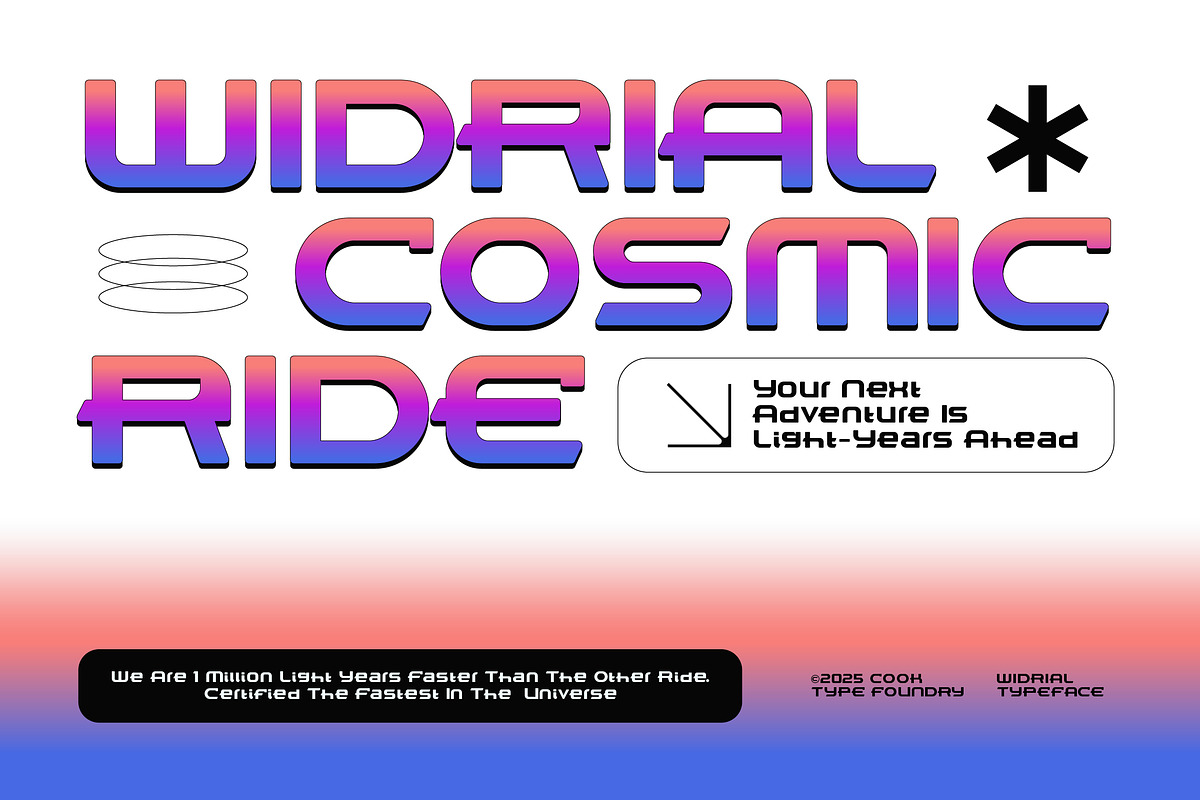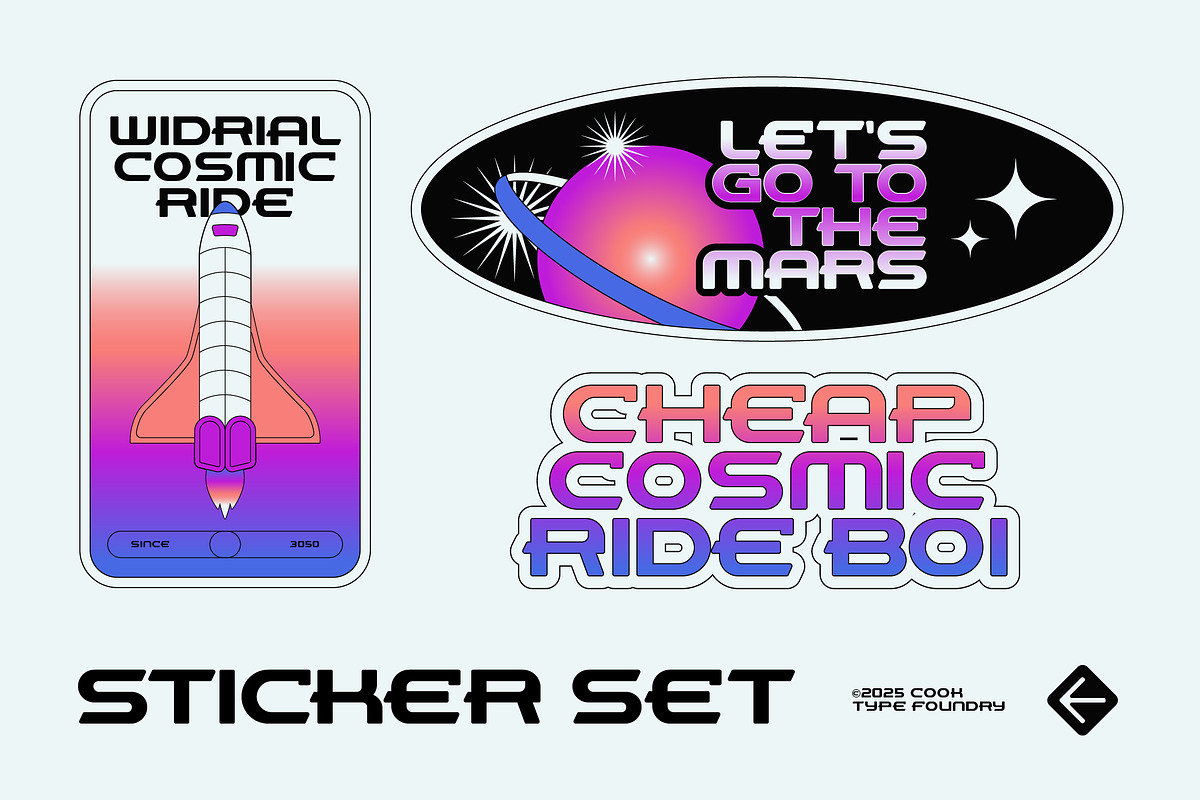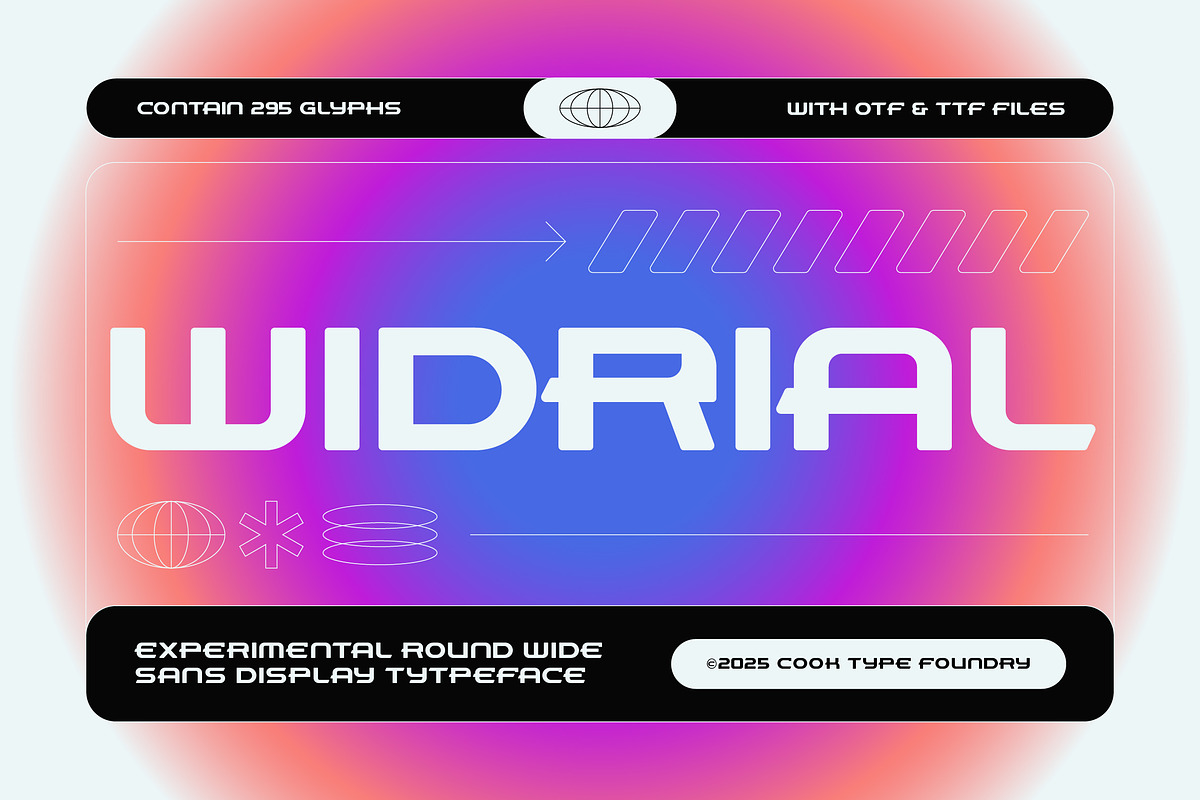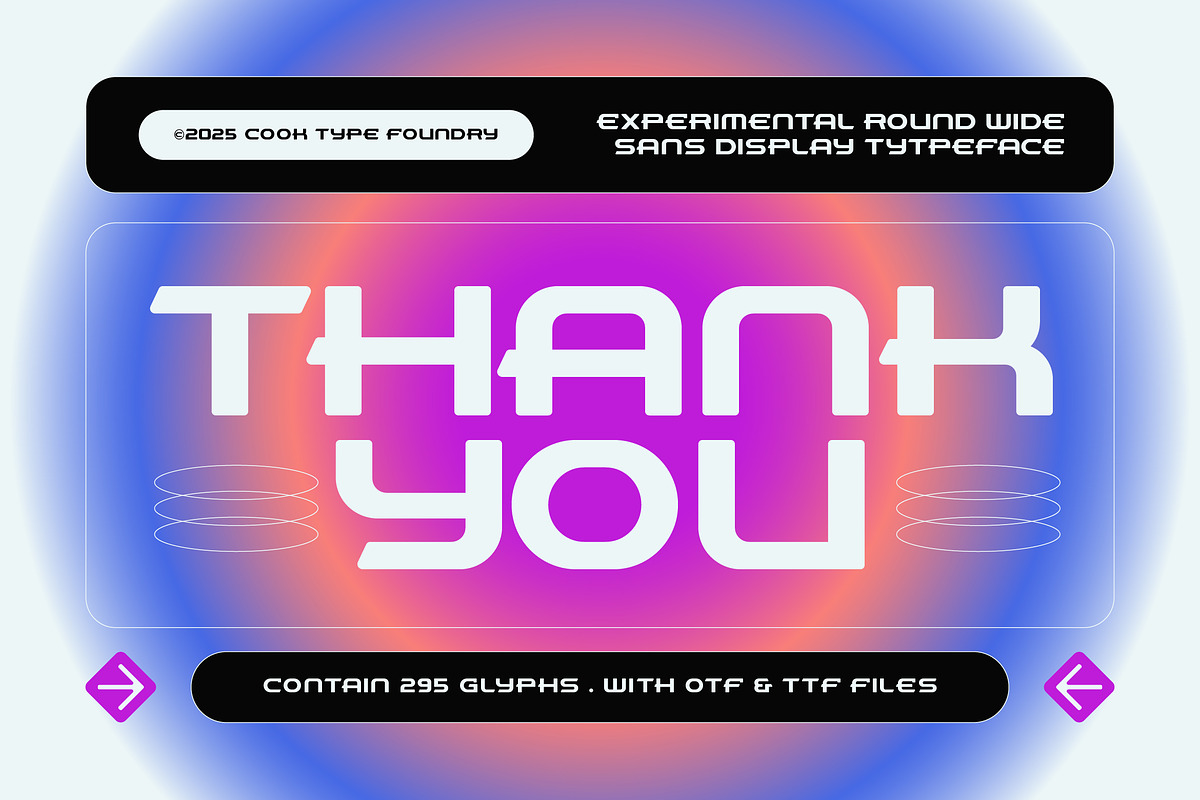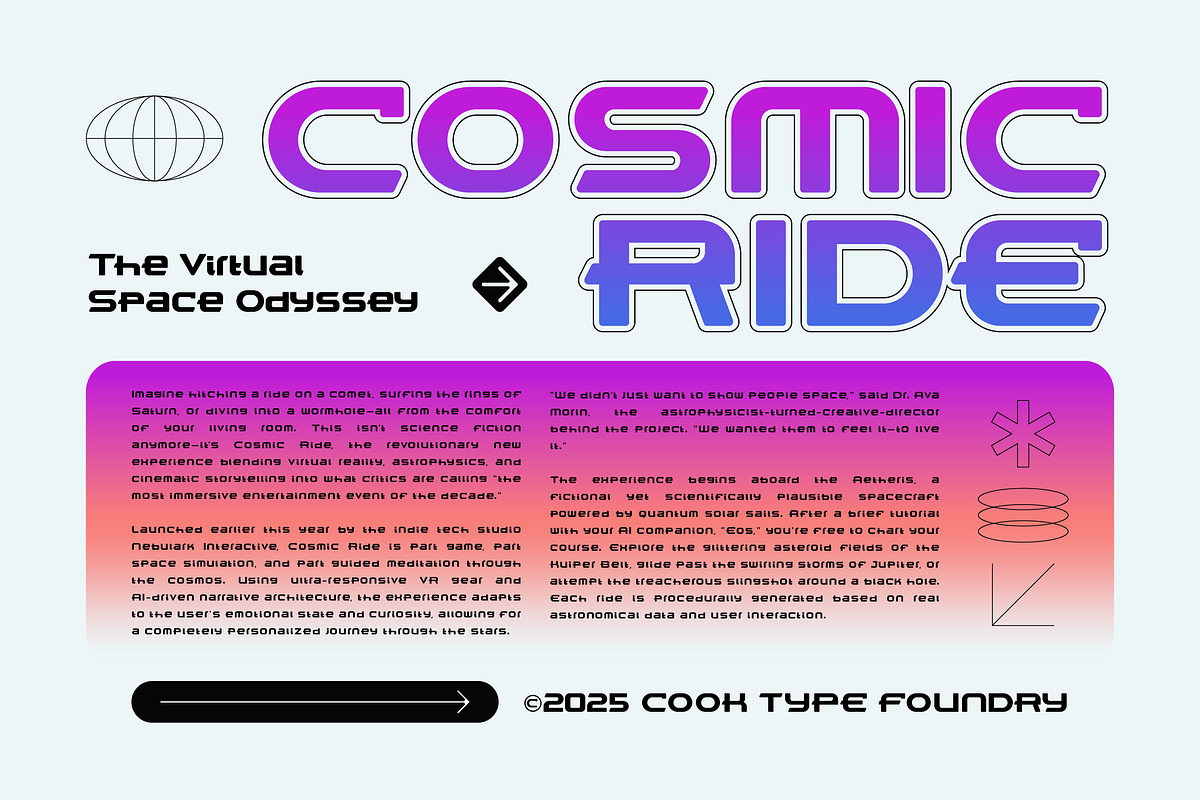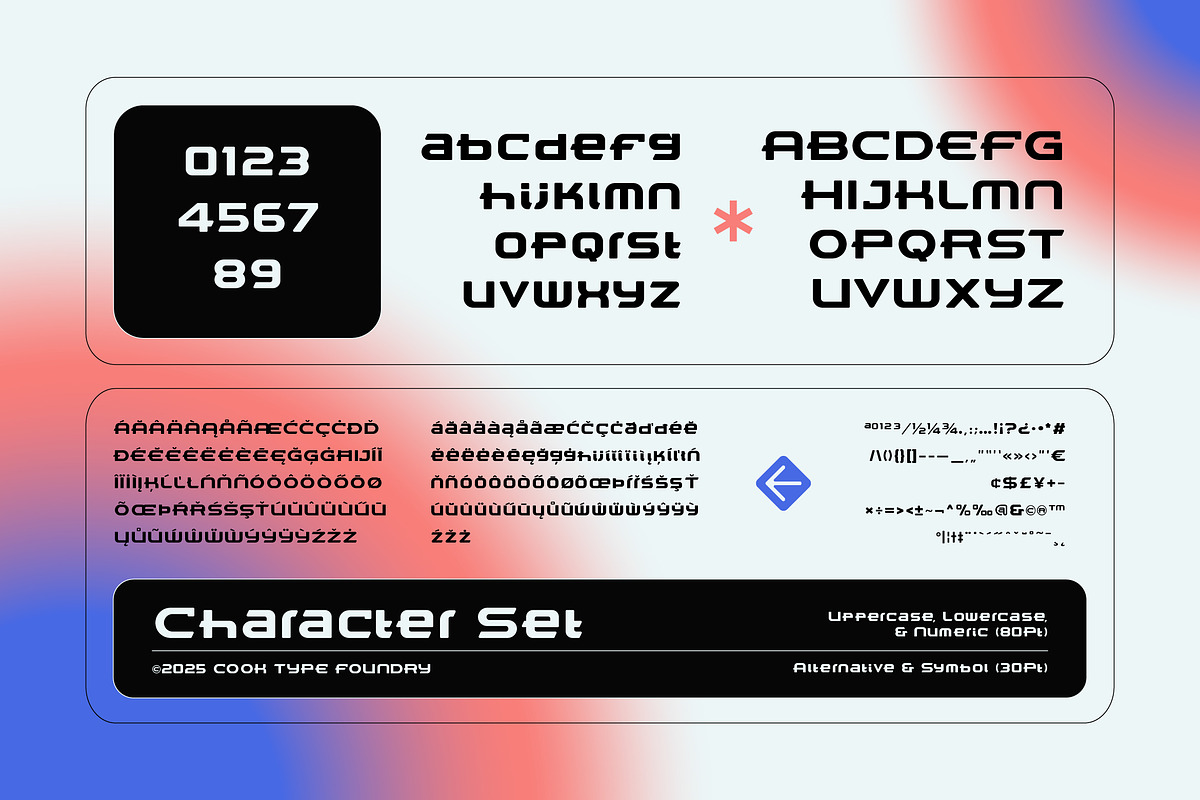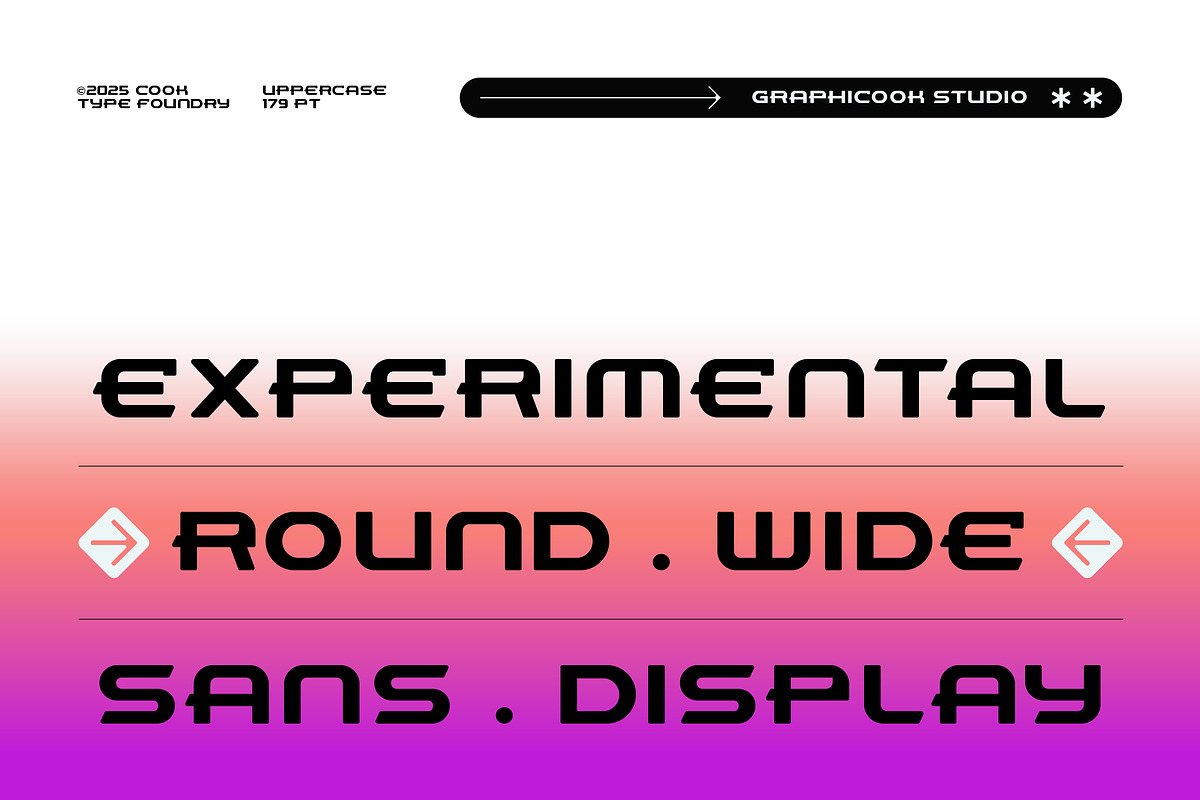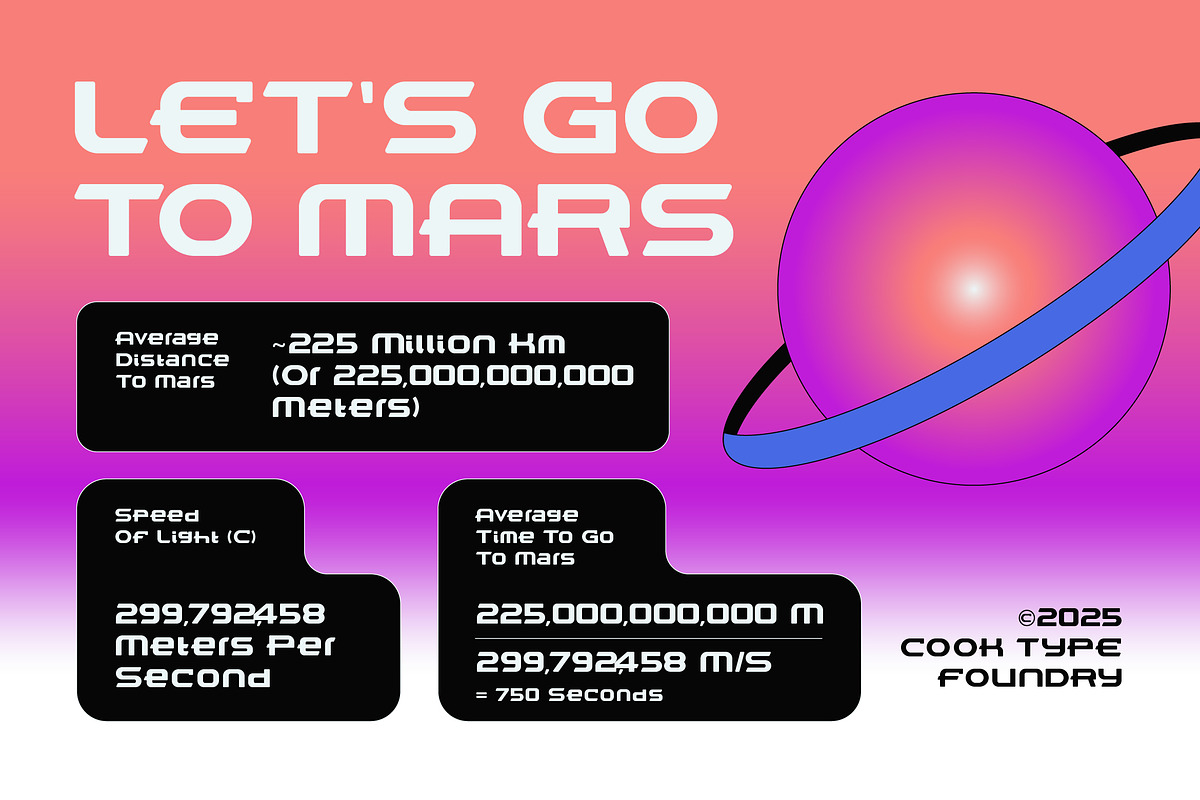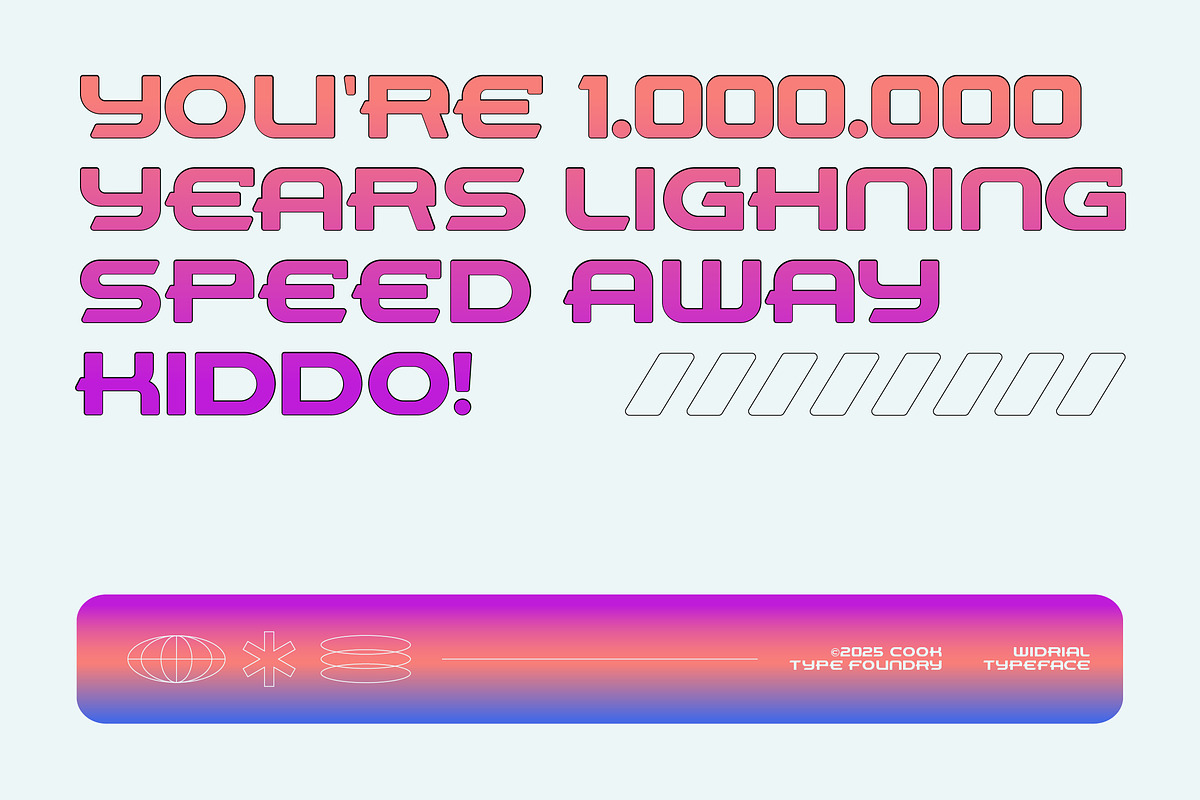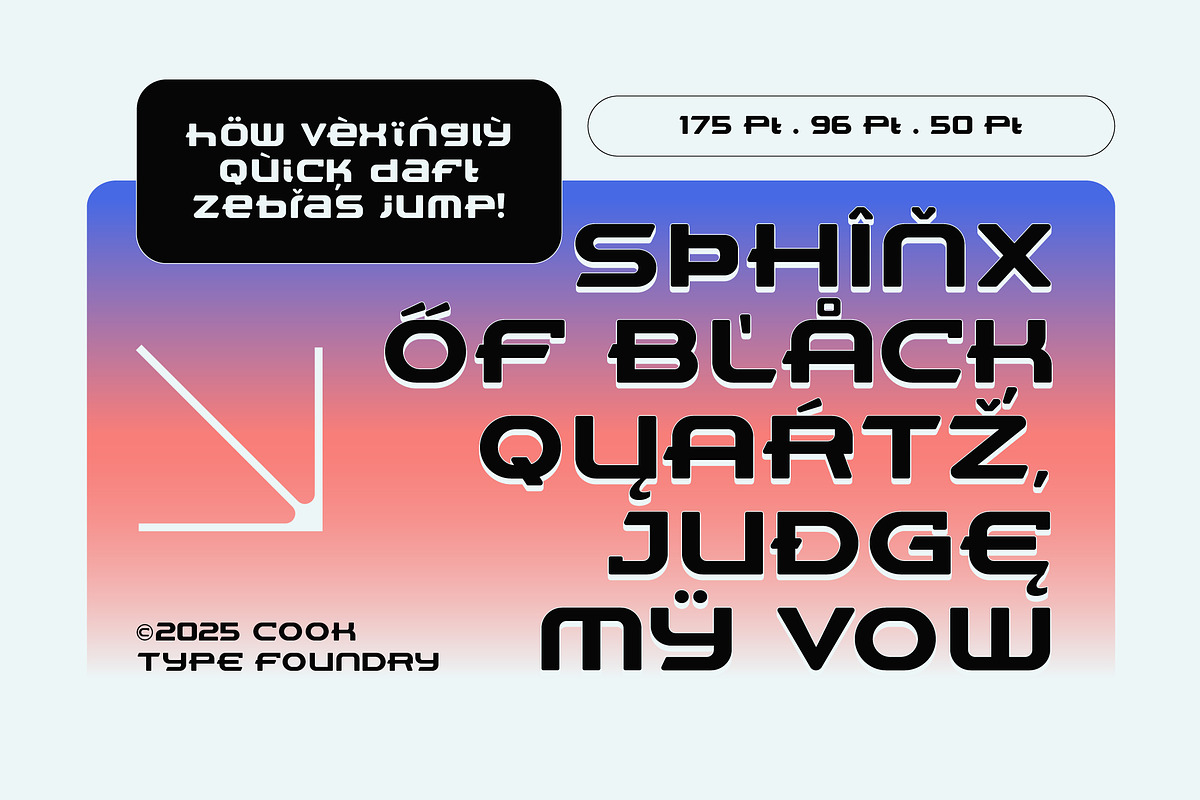
Widrial
Widrial is a sans-serif font with wide letterforms and a distinctive character, evoking a high-tech, futuristic feel. Great for modern, energetic, and technology-focused designs.
Widrial is perfect for headlines, logotypes, magazines, packaging, quotes, movies, games, cover albums, book covers, and flyers, it's a perfect solution for creating eye-catching designs that stand out in any context.